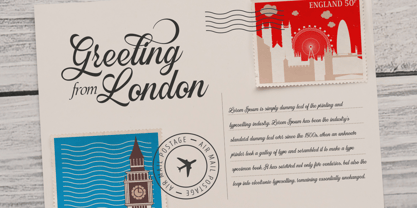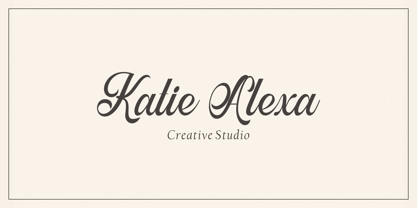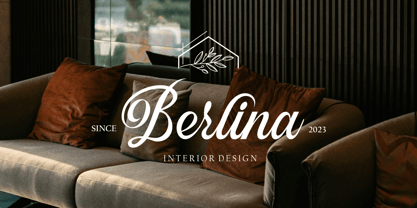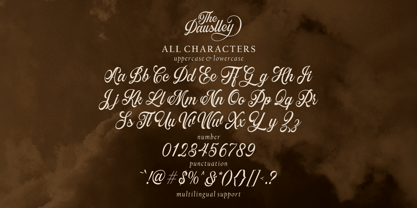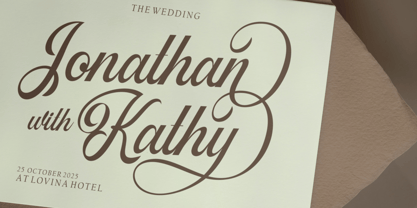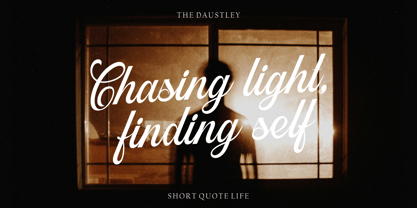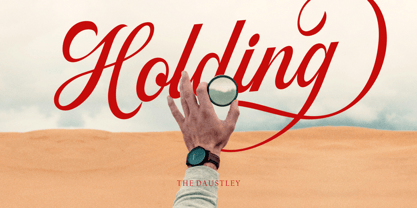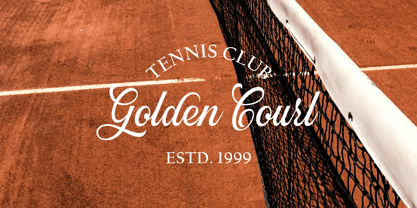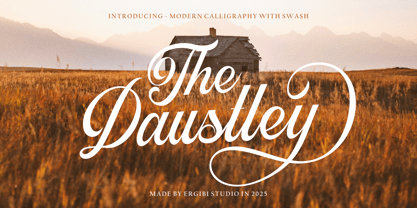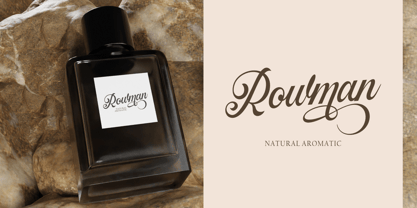
Daustley
by Ergibi Studio
The Daustley Font Family was designed by Riyadh Rahman and published by Ergibi Studio. Daustley contains 1 styles. More about this family
Daustley is a modern calligraphy font that brings elegance and charm to your designs. With its smooth, flowing strokes and stylish letterforms, Daustley is perfect for projects that require a touch of sophistication and creativity. The font also comes with alternate characters, giving you the freedom to create unique and personalized typography combinations. Ideal for wedding invitations, branding, logos, social media posts, and any design that calls for graceful handwritten beauty.